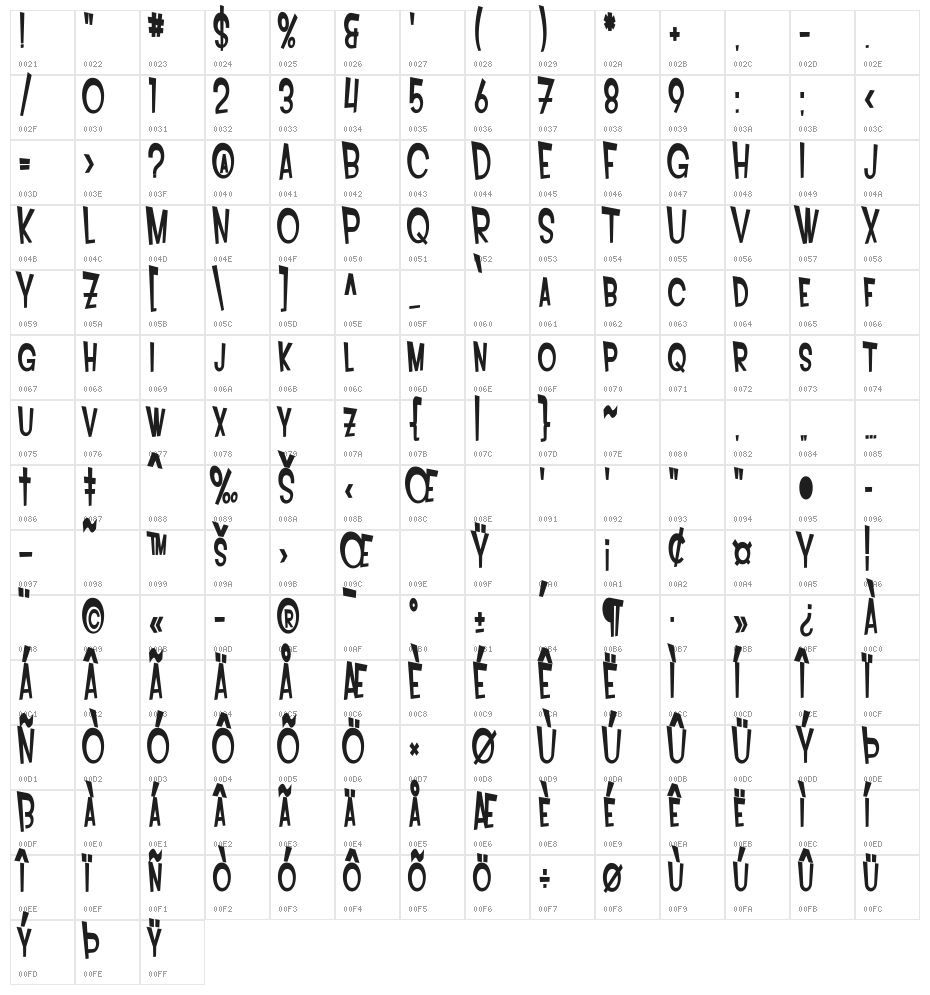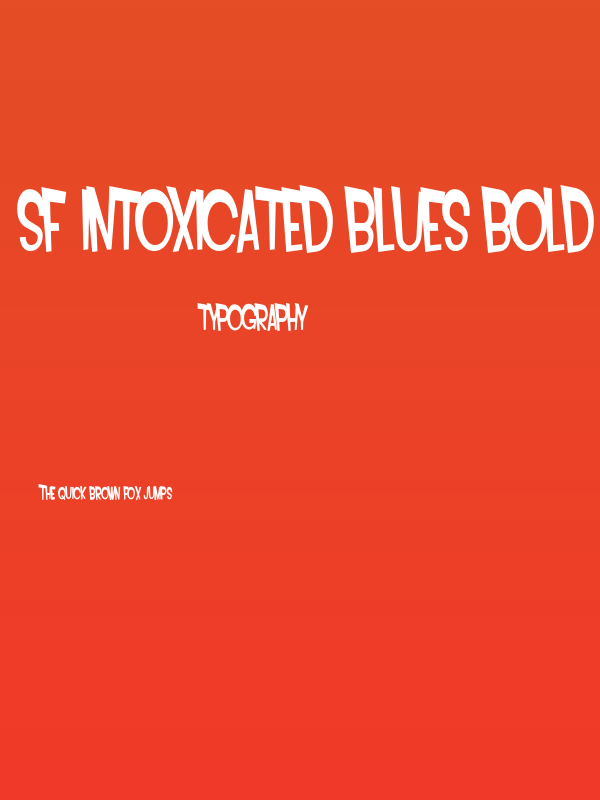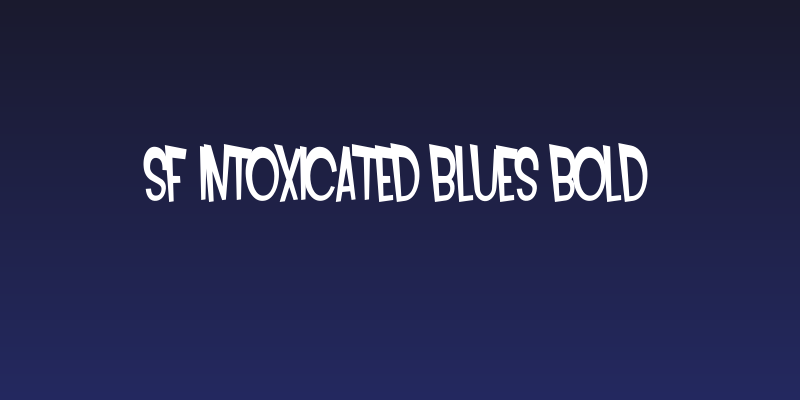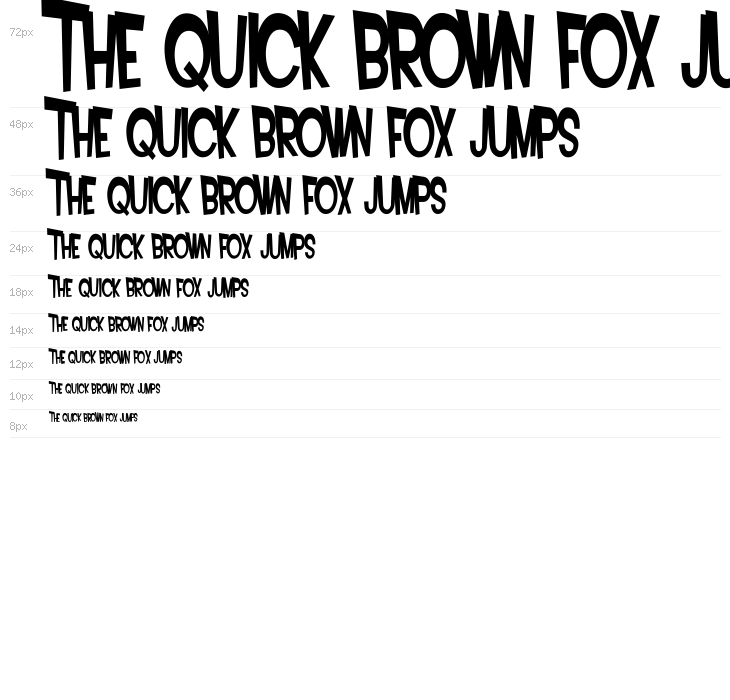
SF Intoxicated Blues Bold Font
SF Intoxicated Blues Bold Description
This bold, decorative font features a striking and playful design with exaggerated proportions and a dynamic, energetic feel. The characters are bold and wide, with a slightly condensed appearance that gives them a powerful presence. The uppercase and lowercase letters maintain a consistent style, with sharp angles and clean lines that create a sense of movement and rhythm. The numbers and special characters are equally bold, ensuring a cohesive look across all elements. This font's unique style makes it ideal for projects that require a strong visual impact.